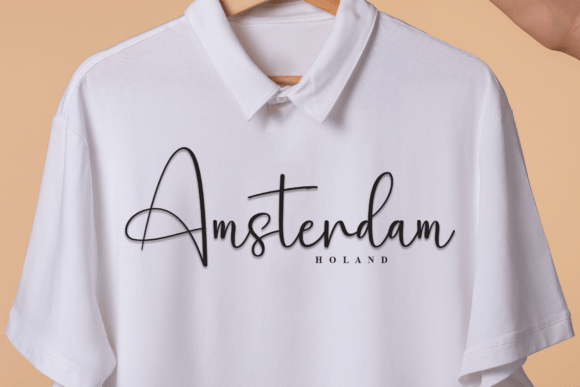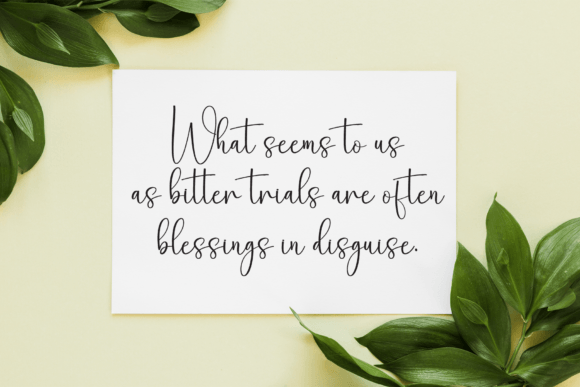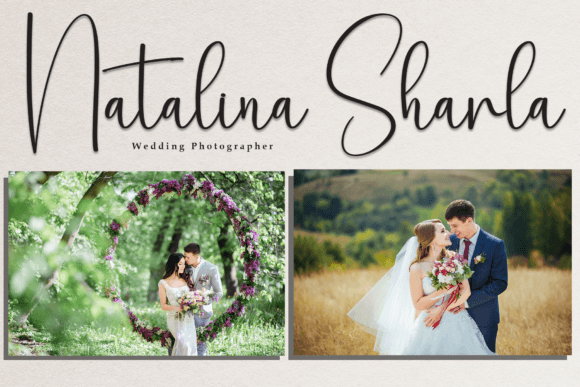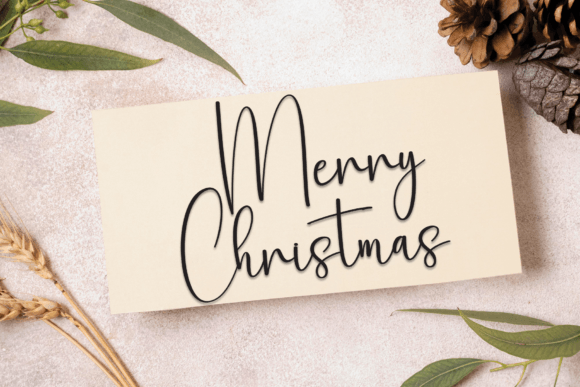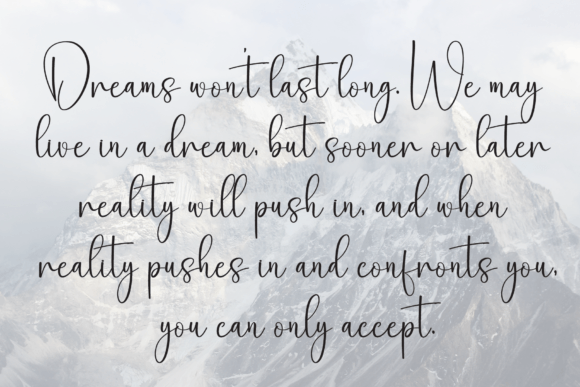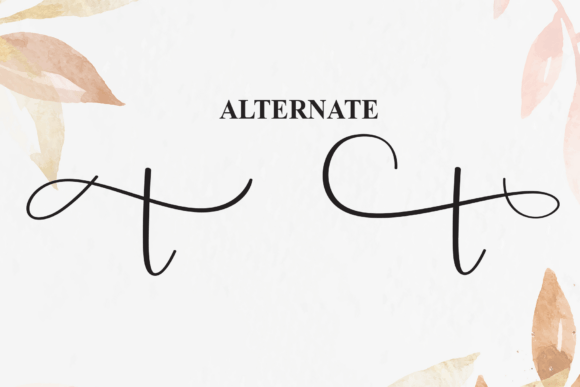
Introduction to Signature Handwriting Font
Have you ever sat down to work on a creative project, only to be struck by the perfect idea? For me, that moment often comes when I’m brainstorming a new design concept. The flow of ideas is like a river, and I’m just along for the ride. It’s in those moments that I crave a design resource that truly brings my vision to life – and that’s where the Signature Handwriting Font comes in.
With its elegant touch and timeless style, this font is the perfect addition to any high-quality design. Its flowing, handwritten nature makes it a standout choice for designers looking to add a personal touch to their work. Whether you’re working on a project that requires a transparent background or simply want to elevate your design game, the Signature Handwriting Font is an invaluable resource that’s sure to impress.
Key Features of Signature Handwriting Font
- Unique Handwritten Style: This font offers a distinctive, handwritten style that’s perfect for adding a personal touch to your creative project.
- High-Quality Design: The Signature Handwriting Font is designed with high quality in mind, ensuring that your text looks crisp and clear.
- Transparent Background: The font comes with a transparent background, allowing you to easily layer it over other design elements.
- Perfect for Personal Projects: The Signature Handwriting Font is ideal for personal projects, such as invitations, greeting cards, and other creative endeavors.
Honest Review: Signature Handwriting Font
I recently had the chance to work with the Signature Handwriting Font for a creative project, and I must say it’s a great addition to any designer’s toolkit.
- High quality font that resembles real handwriting
- Transparent background makes it easy to customize and combine with other design elements
- Wide range of applications, from digital to print media
The Signature Handwriting Font is perfect for designers who want to add a personal touch to their work. It’s versatile and can be used in a variety of creative ways, from headings to body text.
- Limited character set, may not be suitable for long blocks of text
- No bold or italic styles available, may not be ideal for emphasis
Overall, I’m impressed with the Signature Handwriting Font. It’s a great design resource that can help take your creative projects to the next level.
Tips for Getting the Most Out of the Signature Handwriting Font
To get the most out of the Signature Handwriting Font, experiment with different font sizes, colors, and styles. Use the font in conjunction with other design elements, such as images and graphics, to create a unique and eye-catching design. Don’t be afraid to try new things and push the boundaries of your design.
The Signature Handwriting Font is perfect for a variety of creative projects, including wedding invitations, business cards, and social media graphics. It’s also great for adding a personal touch to presentations and documents. With a free download available, this design resource is a must-have for any designer or artist.
Can I use the Signature Handwriting Font on a transparent background?
Yes, the Signature Handwriting Font is designed to be used on both colored and transparent backgrounds. Since the font has a high level of transparency, it will seamlessly integrate with your design elements, allowing you to create visually appealing and professional-looking graphics.